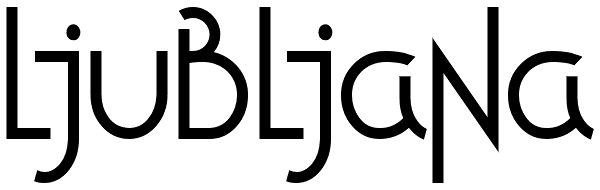
Ljubljana
Ljubljana was inspired by art deco lettering seen in Slovenia, Croatia and Romania. It includes the Latin, Greek, and Cyrillic alphabets. It is named after the capital of Slovenia. Ljubljana is unicase, composed of as few basic glyphs as possible...